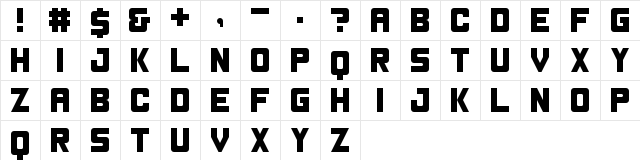
Timeline Regular
| Designer | GeronimoFonts |
Design Context for Timeline Typeface
Timeline is a composed and adaptable typeface that performs quietly and consistently across a wide range of design contexts.